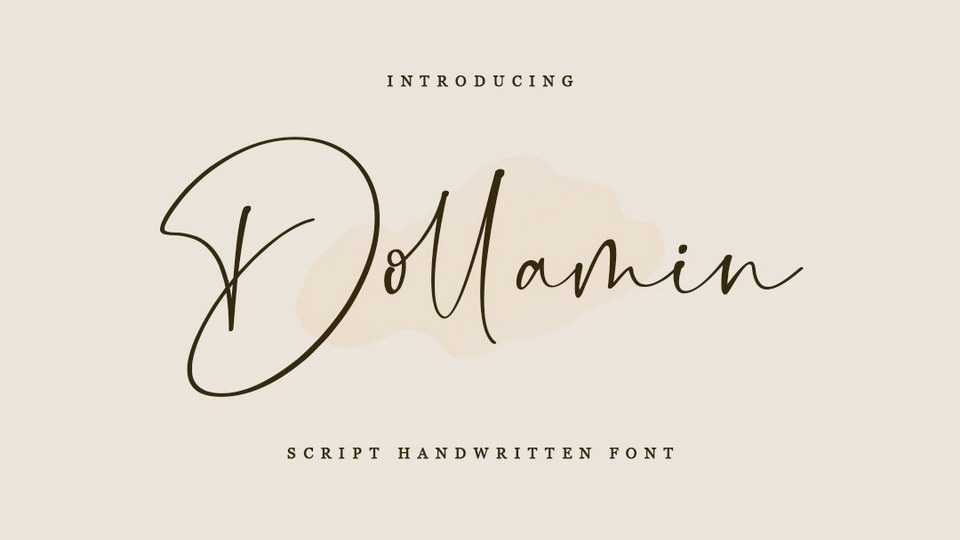
Download Dollamin font, a signature style handwritten typeface that brings an air of elegance to every curve. Dollamin feels the authentic in each letter, so turn this font into a part of your creative work!